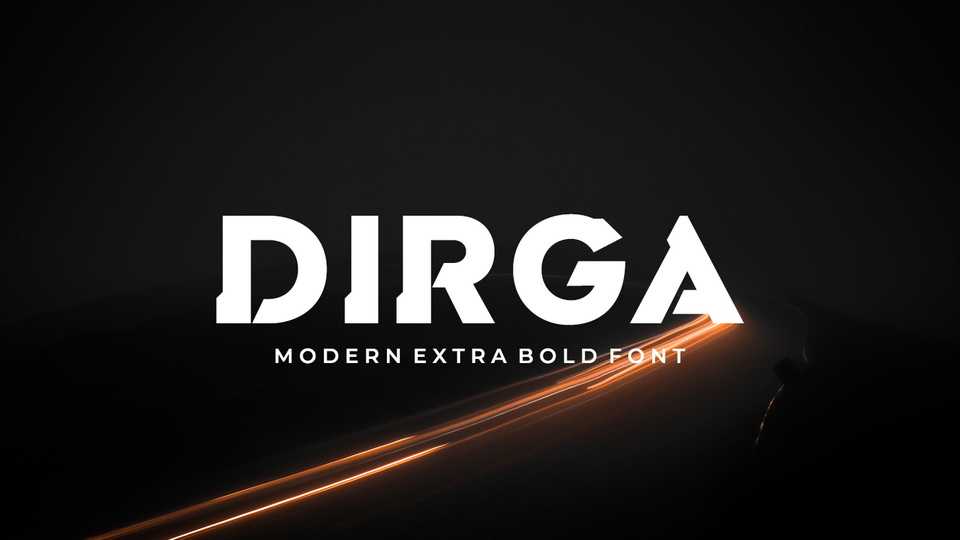
Download Dirga font, an extra bold display typeface with shark fins on each glyph. Dirga font is suitable for logo, title text, shirt design, brochure, poster, and many more.